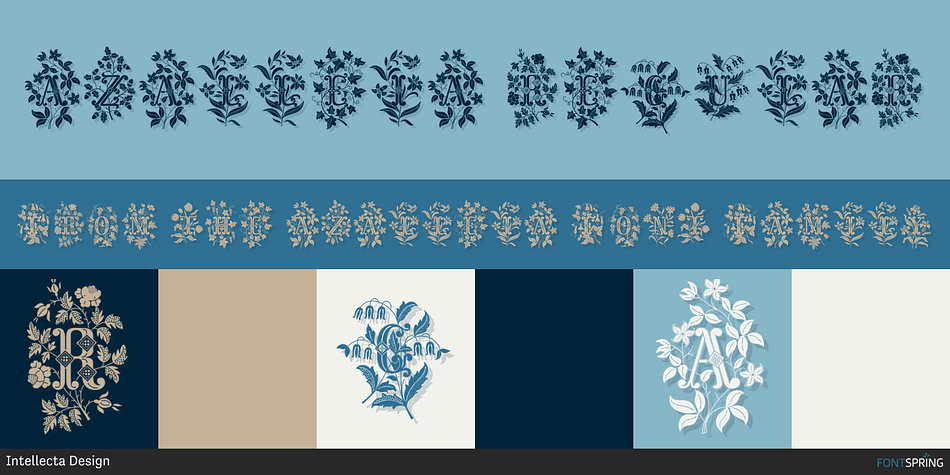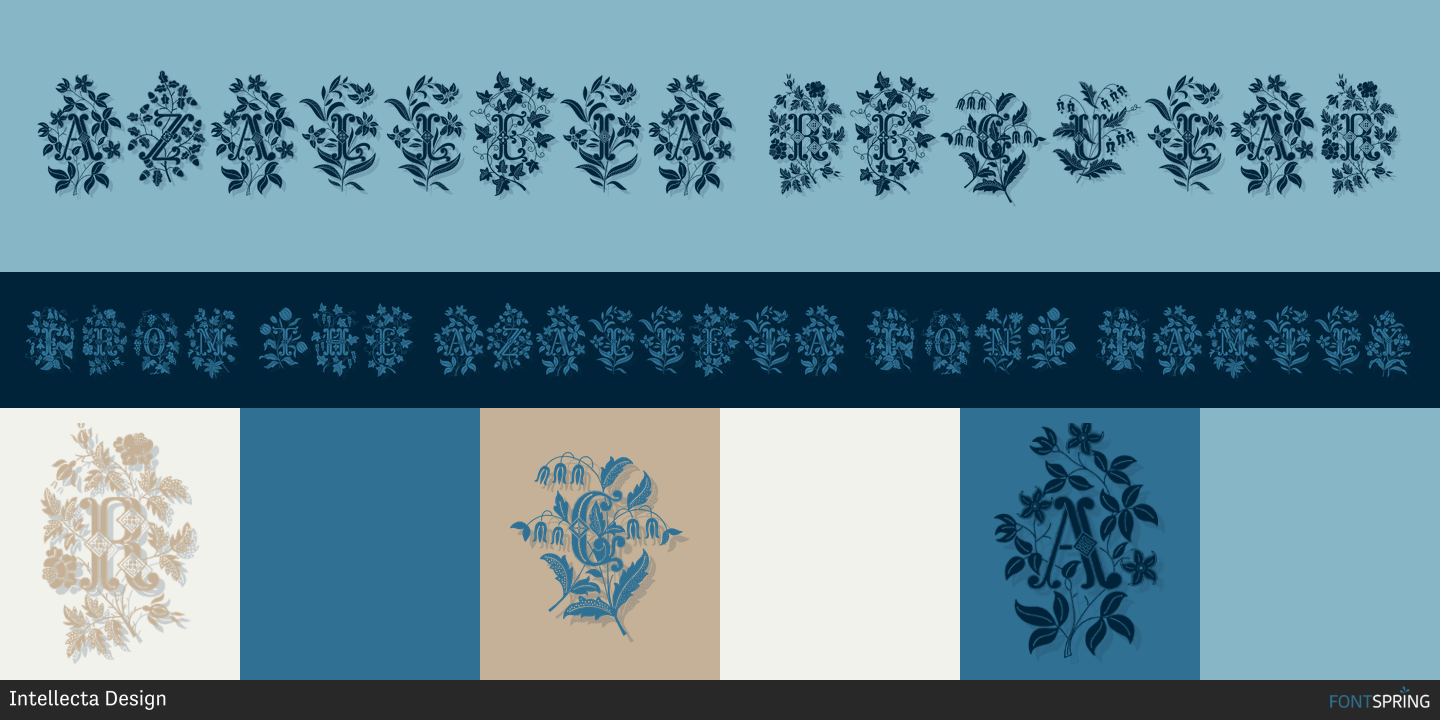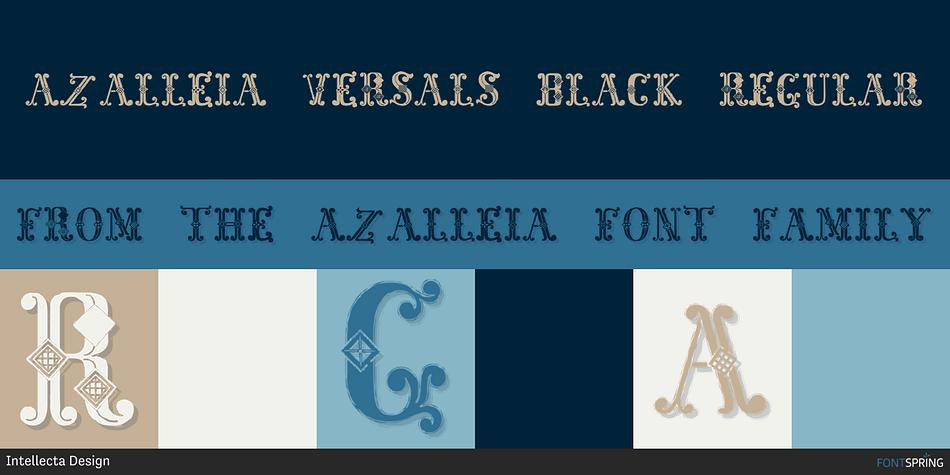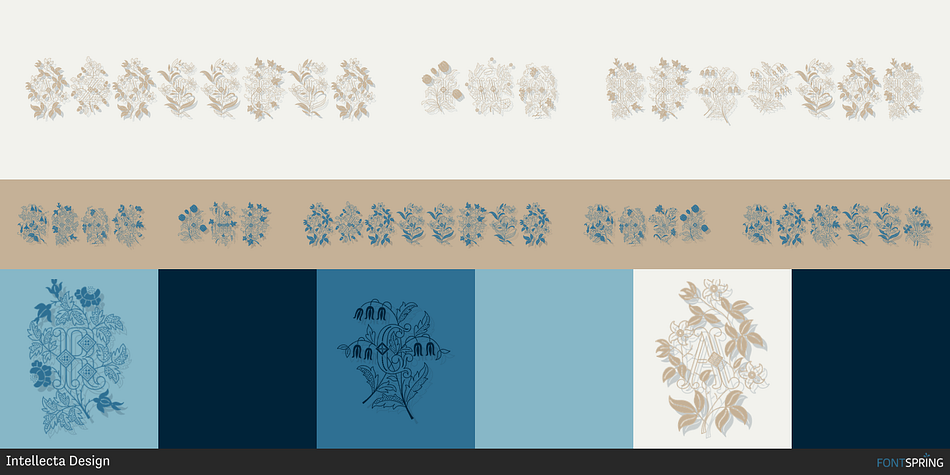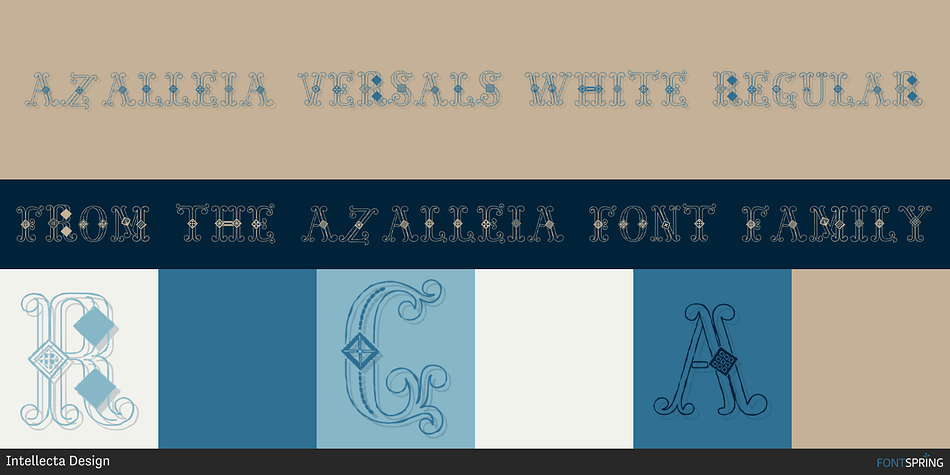
Azalleia
Designed by Paulo W, Azalleia is a monograms font family. This typeface has four styles and was published by Intellecta Design.
Azalleia is a new exaggerated flourished caps typeface. Well elaborated and unusual design, inspired by old cross-stitch and craft books. Works great when used for display artworks. Entirely designed by hand, without use of auto-tracing and available in two different designs.